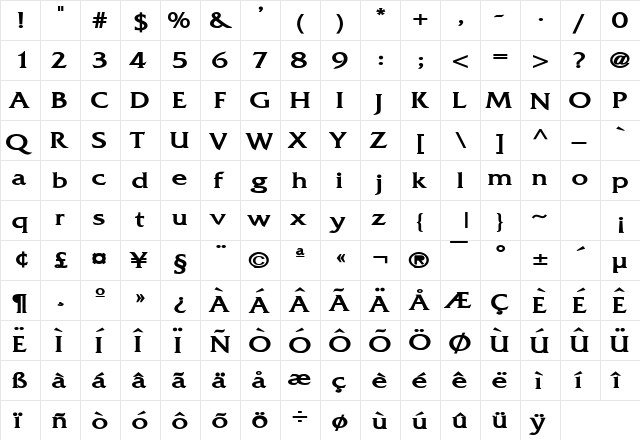
Franco Wide Bold
Design Context for Franco Wide Typeface
Franco Wide offers clean, dependable letterforms without strong stylistic allegiance, making it a practical choice for designers who need flexibility. The heavy weight commands attention and anchors typographic hierarchies.